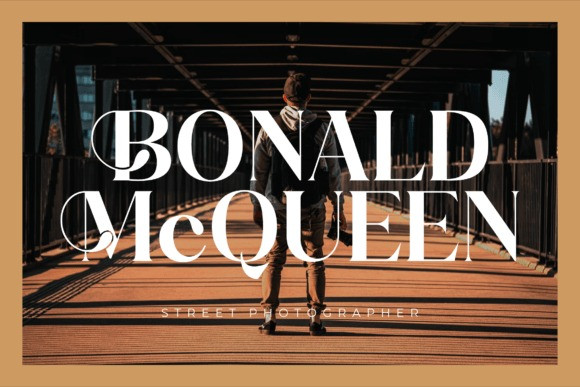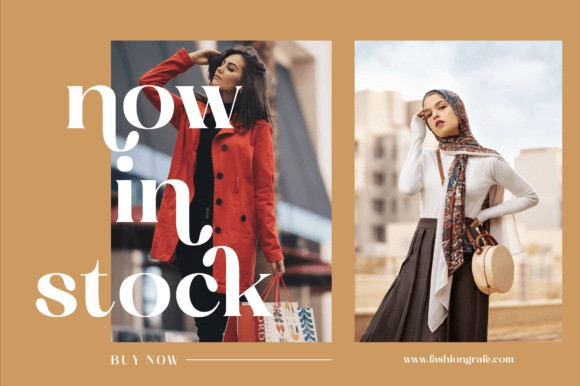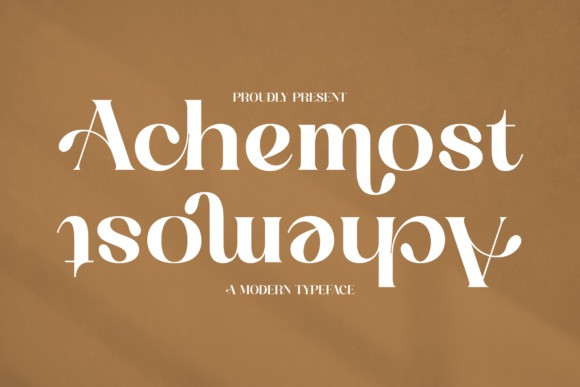
Achemost Font
Achemost Font, created by Storytype, a serif modern and classic typeface that has own unique style & modern look. This typeface is perfect for an elegant & luxury logo, book or movie title design, fashion brand, magazine, clothes, lettering, quotes, and so much more.